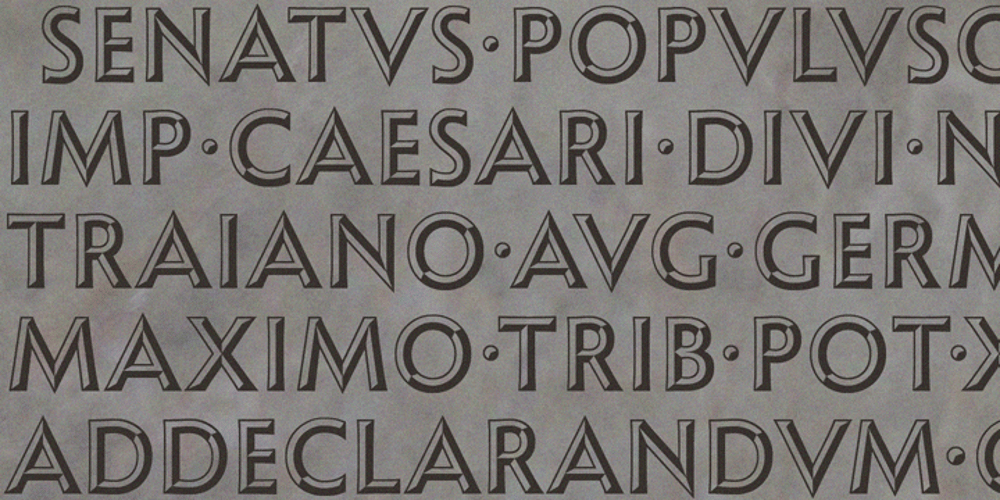
Shàngó Chiseled
Shàngó Chiseled font
Shàngó Chiseled Font Family was designed by Jason Castle and published by CastleType. Shàngó Chiseled contains 1 styles and family package options. Based on the elegant and somewhat delicate Shàngó “Classic”, Shàngó Chiseled goes to the other extreme with a bold and emphatic design that continues the legacy of the beautiful classic proportions of Dr. Schneidler’s original titling typeface. Warm, cheerful, open, and sensitively masculine, Shàngó Chiseled can give you the impact you need. Perfect for an embossed look, or of classic lettering in stone. A complete character set that supports most European languages. Shàngó Chiseled is a member of the extended Shàngó family (Classic, Chiseled, Sans, Gothic).